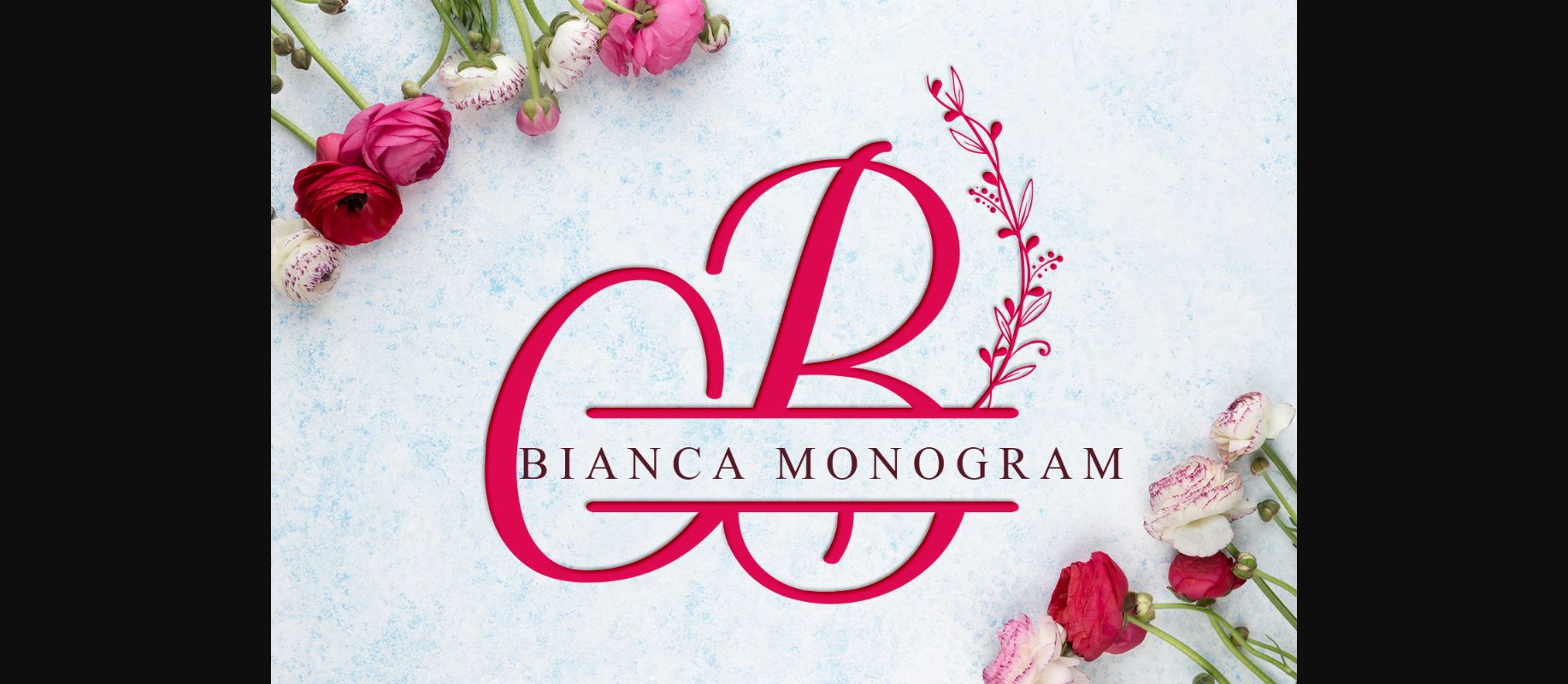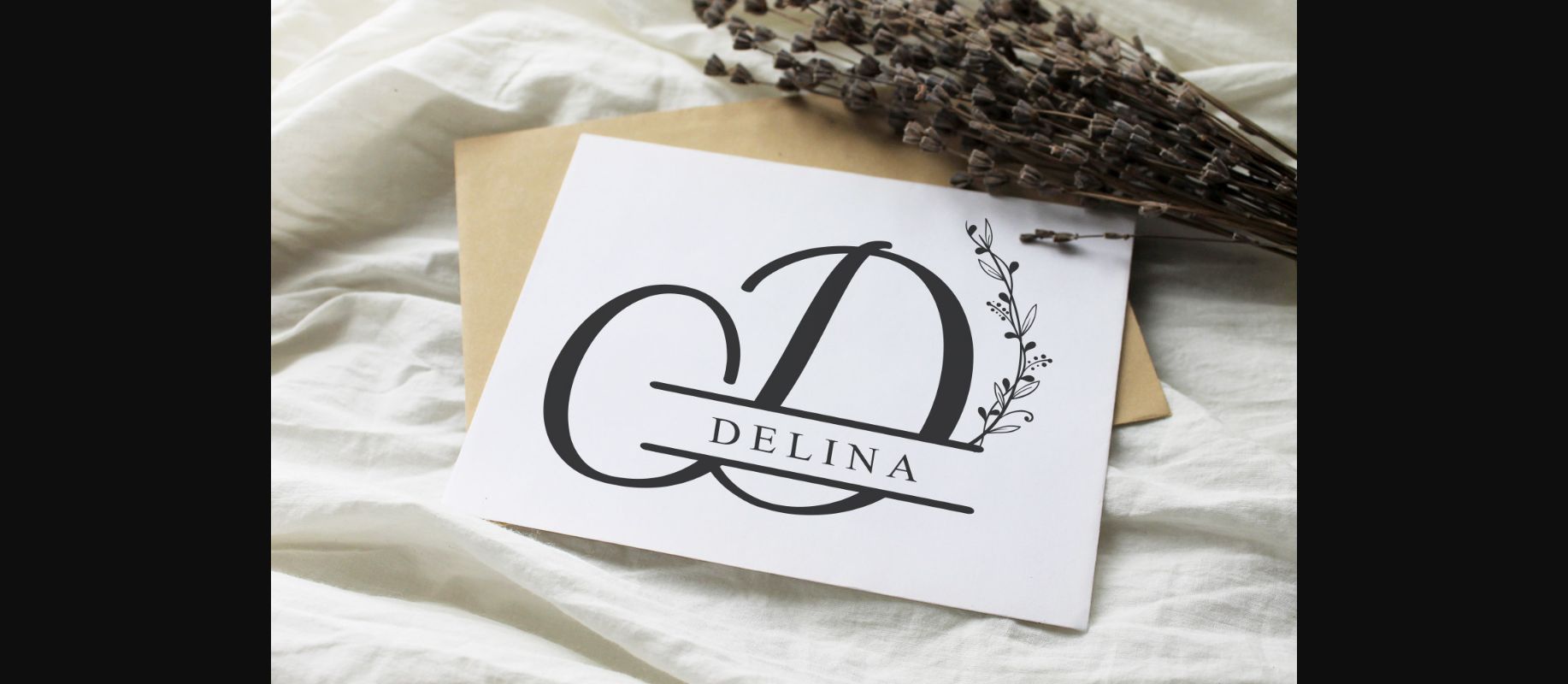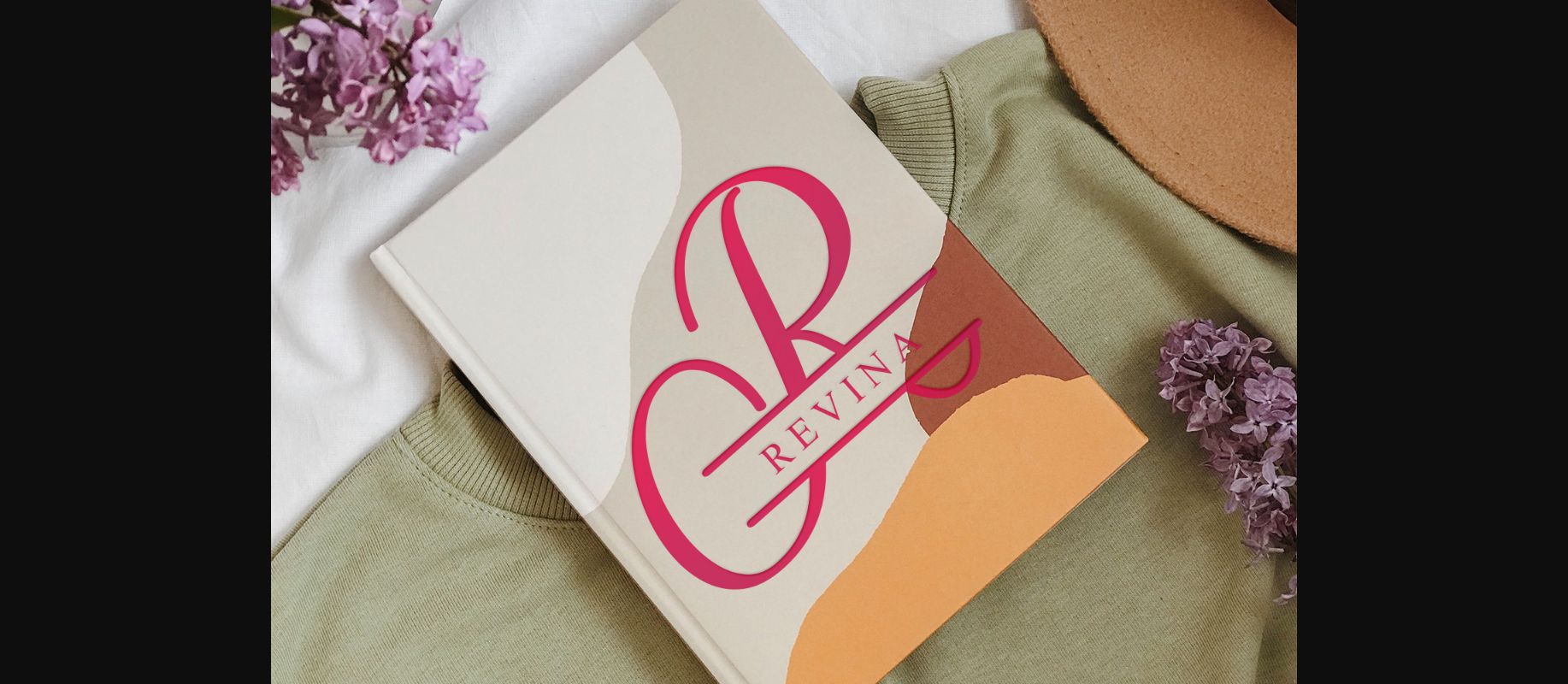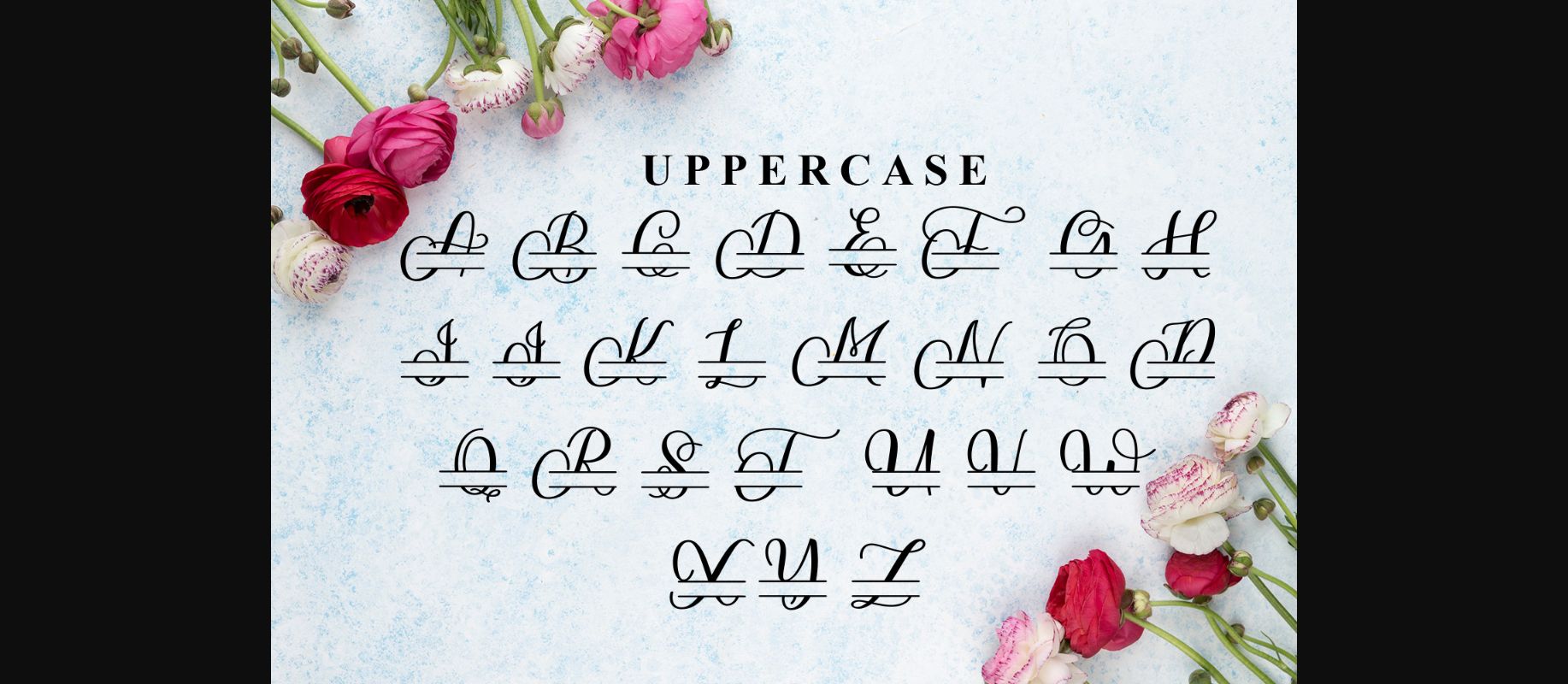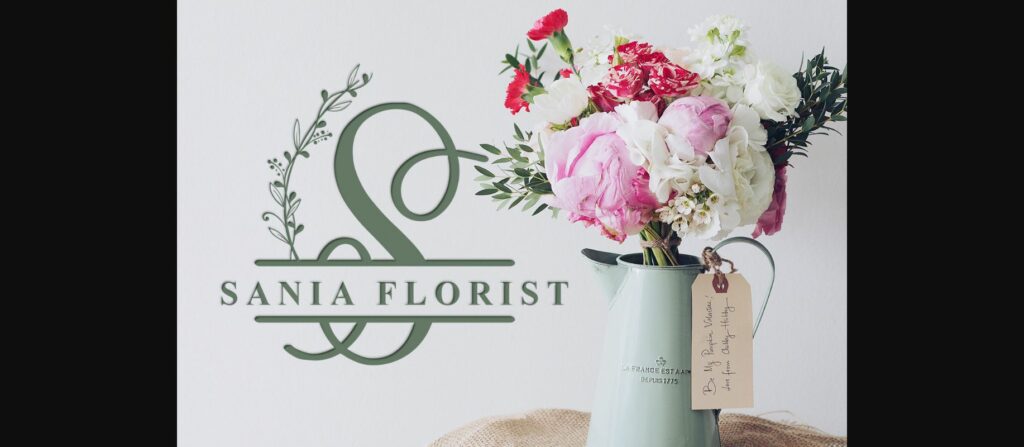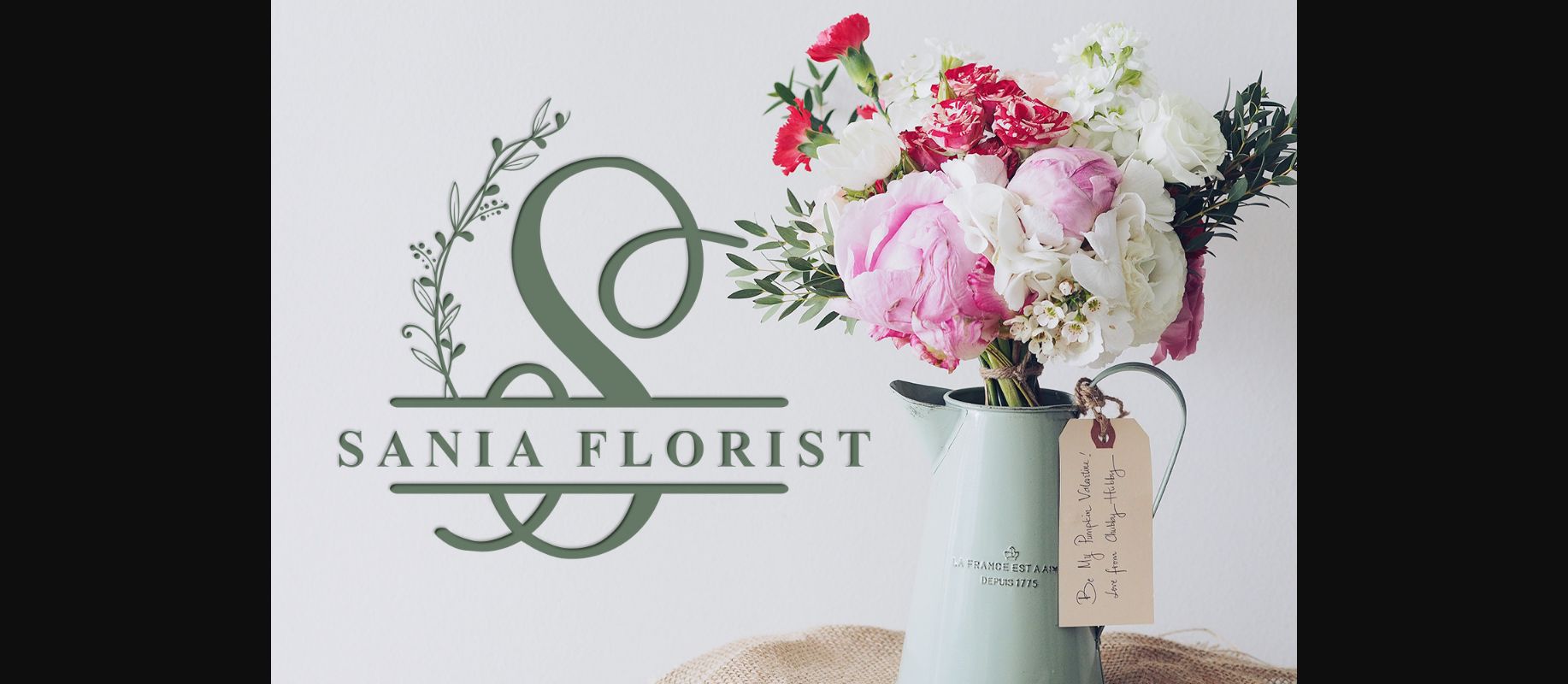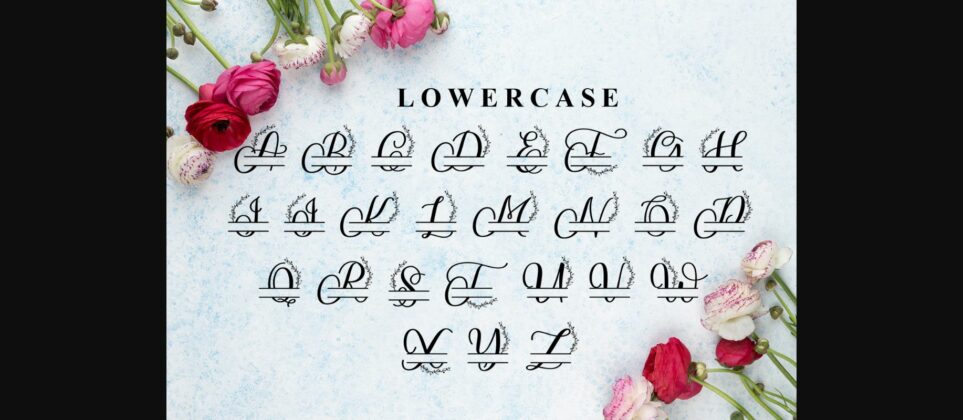
HomeDecorative FontsBianca Monogram Font Decorative Fonts Bianca Monogram Font FacebookXPinterestWhatsApp 1 of 8 ... Bianca Monogram Font Poster 2... Bianca Monogram Font Poster 3... Bianca Monogram Font Poster 4... Bianca Monogram Font Poster 5... Bianca Monogram Font Poster 6... Bianca Monogram Font Poster 7... Bianca Monogram Font Poster 8... About Bianca Monogram Font Bianca Monogram is a dainty and unique decorative font. Add this romantic and lovely looking font to each of your love letters, wedding invitations or favorite design ideas, and you will be astounded by the outcome. DOWNLOAD NOW People also explored Heart Font Fallery Script Font Culia Bourdeilles France Font Realistic Mock-ups on Vintage Background Wonderful Font Hey Yoga Font Greyfox Font South America Font 218 0 TagsBianca Monogram Font Previous articleCreepy Halloween Monogram FontNext articleDecoria Monogram Font LEAVE A REPLY Cancel reply Comment: Please enter your comment! Name:* Please enter your name here Email:* You have entered an incorrect email address! Please enter your email address here Website: Save my name, email, and website in this browser for the next time I comment. Personal Use Free Bakk Trieng Personal Use Free Read more about this font Adelia Font Personal Use Free Read more about this font Zero Hour Personal Use Free Read more about this font Veronica Personal Use Free Read more about this font BLOG Using Fonts in Digital Marketing: Tips to Strengthen Your Brand Identity In the realm of digital marketing, every visual element plays a crucial role in shaping a brand's identity, and fonts are no exception. The... Best Fonts for YouTube Videos: Make Your Thumbnails Stand Out Top 10 Handwritten Fonts That Elevate Your Designs Where to Buy American Fonts Online in 2024